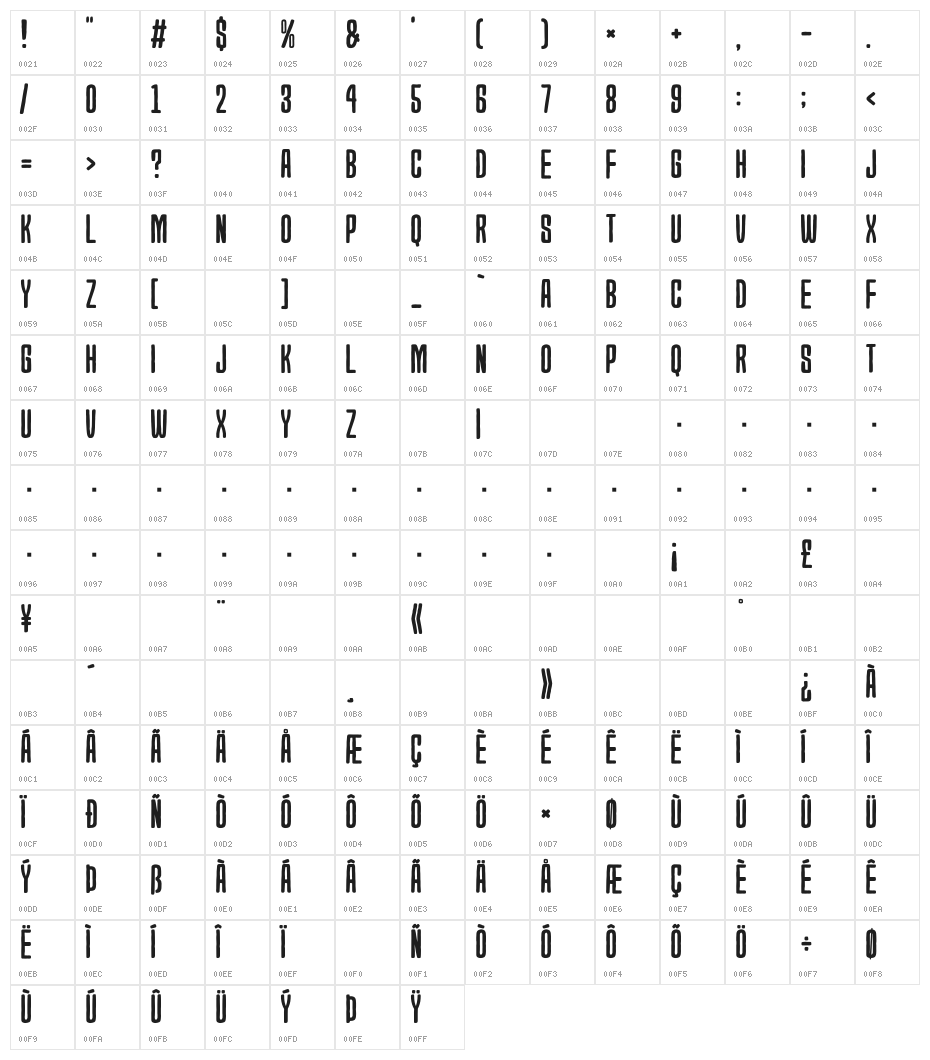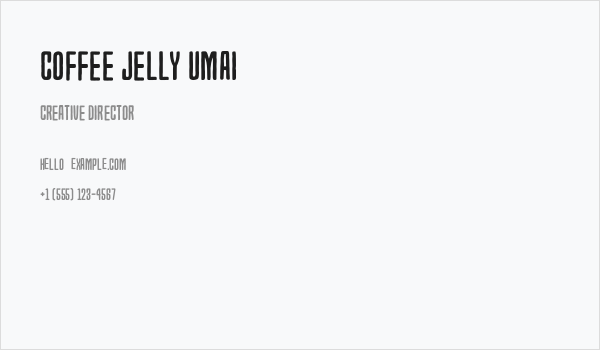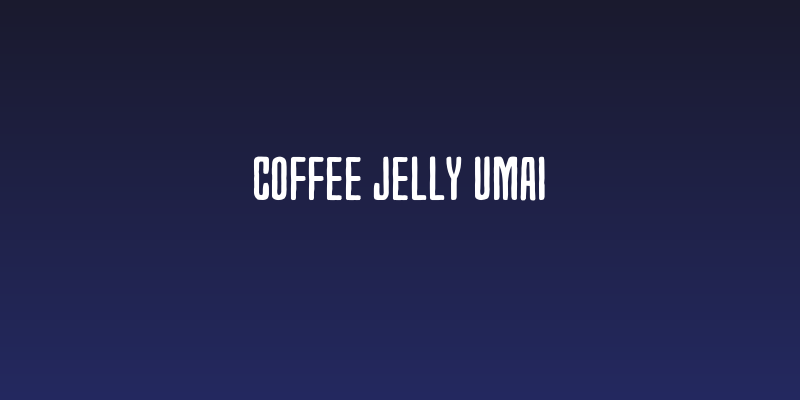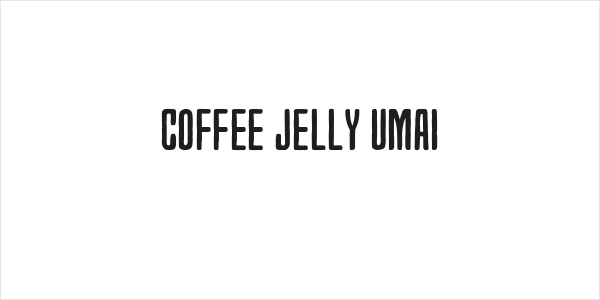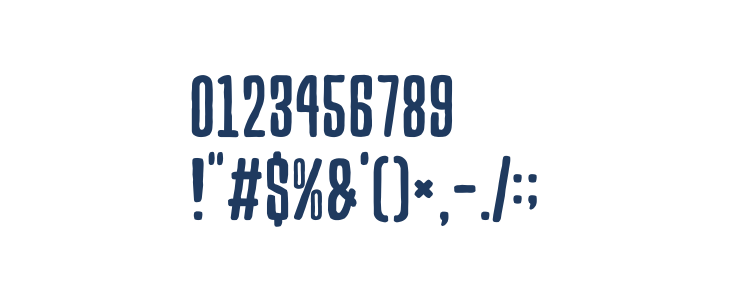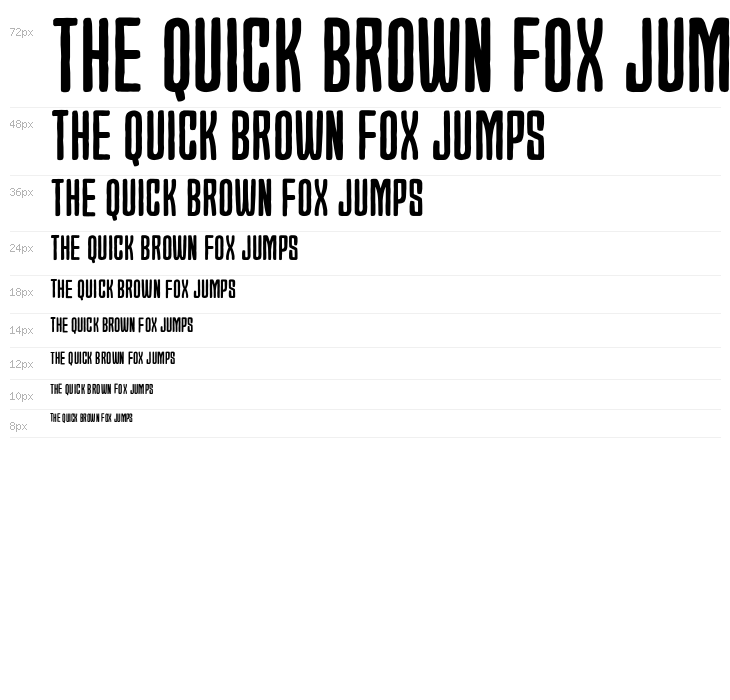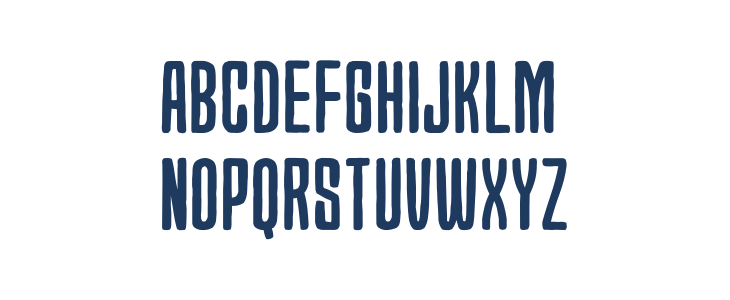
Coffee Jelly Umai Font
Coffee Jelly Umai Description
This font features a bold and condensed style with a strong presence. The characters are tall and narrow, giving a sense of height and strength. The strokes are consistent in width, providing a uniform appearance across all letters and numbers. The uppercase and lowercase letters maintain a cohesive look, while the numerals are clear and easy to read. The special characters are distinct and match the overall aesthetic, making this font suitable for impactful designs.